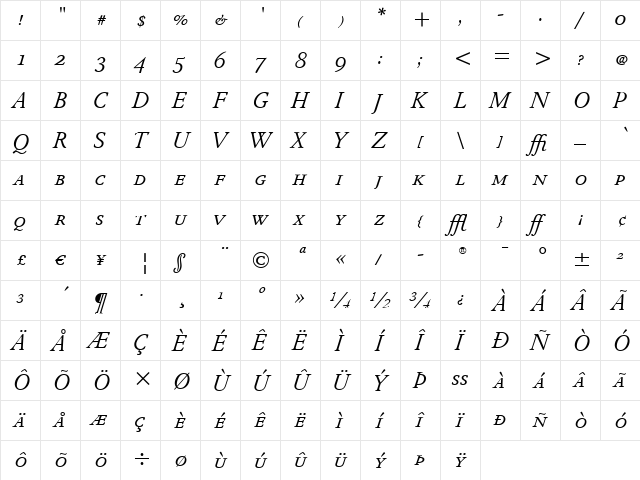
Winchester New ITC Book Italic
Design Context for Winchester New ITC Typeface
Winchester New ITC is a composed and adaptable typeface that performs quietly and consistently across a wide range of design contexts. Its italic angle brings a sense of urgency and motion to the letterforms.
Pro Tip: Try Winchester New ITC for annotation and caption copy alongside an upright companion — the contrast in angle creates a dynamic but ordered typographic system.